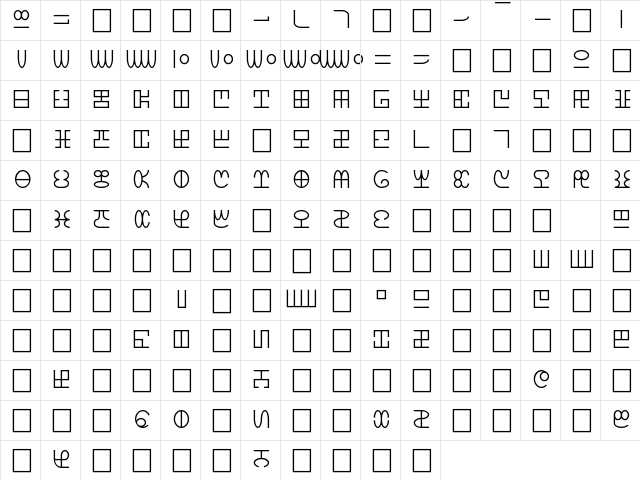
Khemitic Hieratic Regular
| Foundry | Urhixidur Fonts |
| Designer | Daniel U. Thibault |
Design Context for Khemitic Hieratic Typeface
Khemitic Hieratic is a composed and adaptable typeface that performs quietly and consistently across a wide range of design contexts.